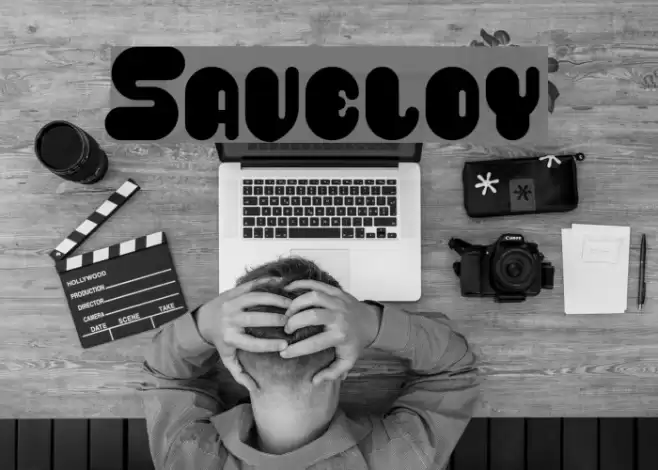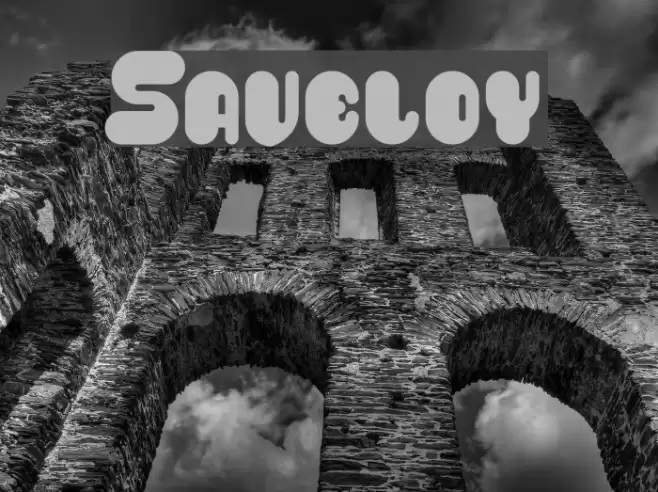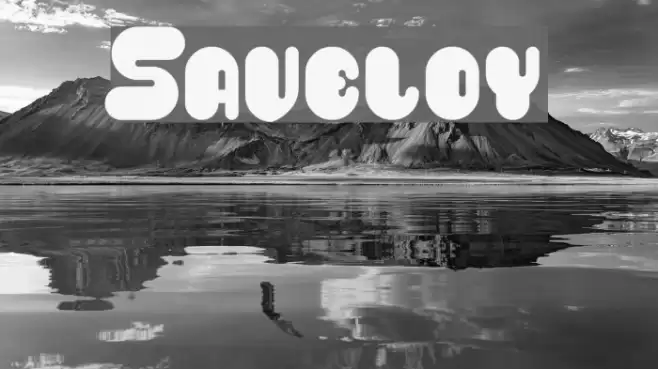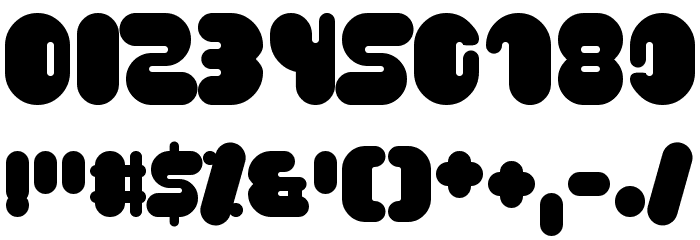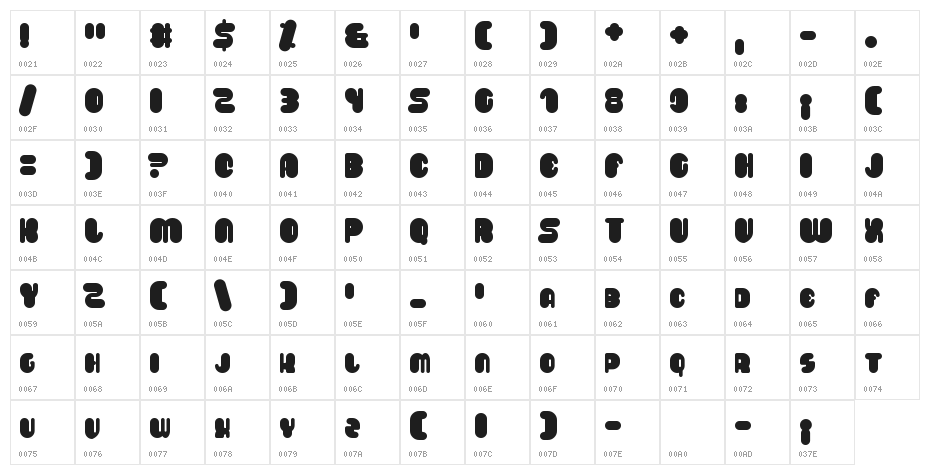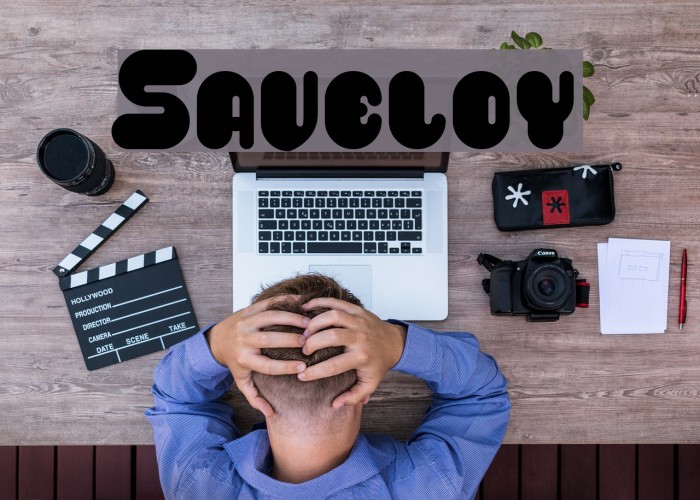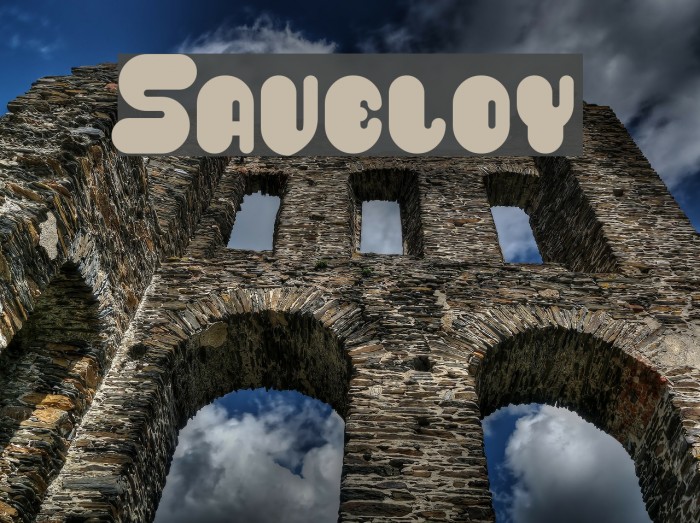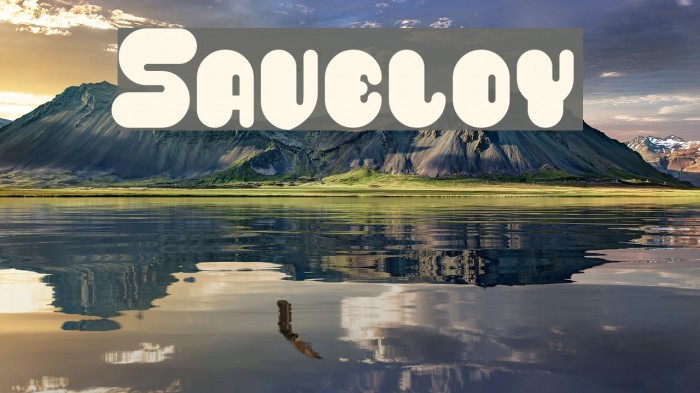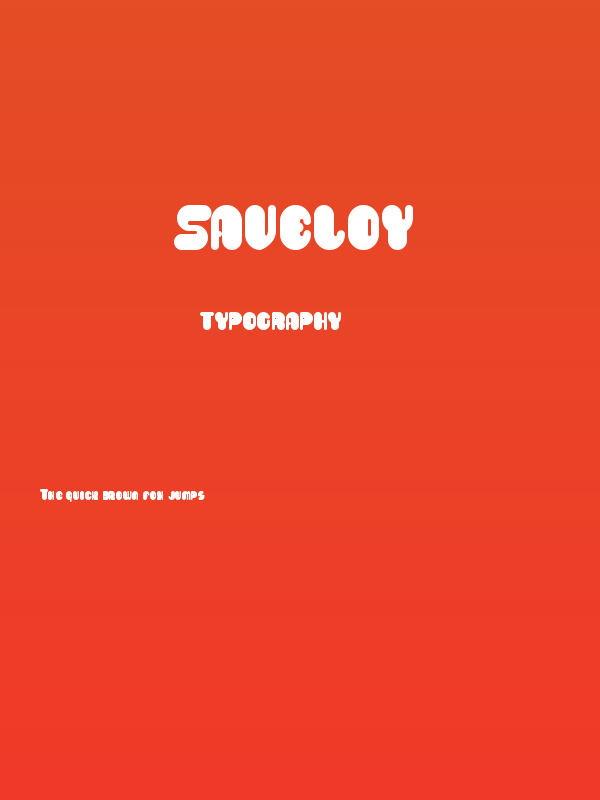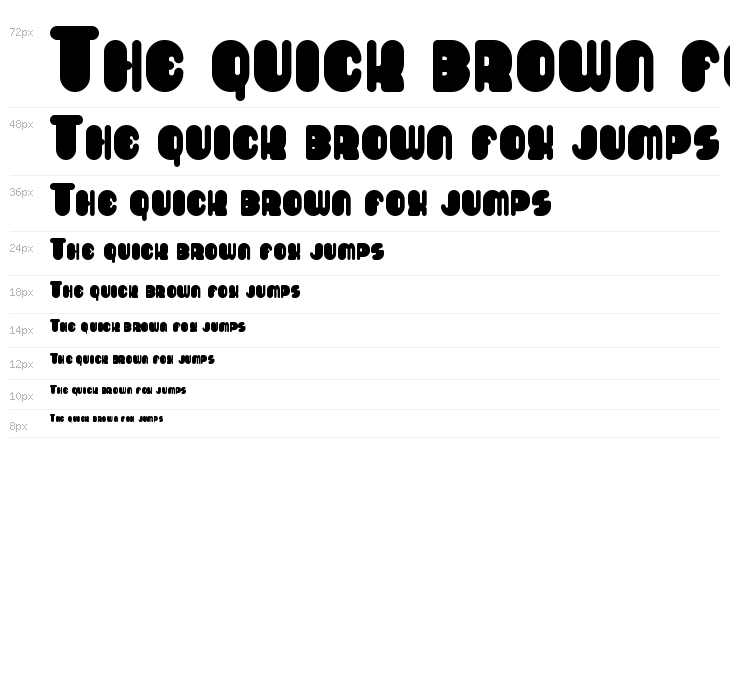
Saveloy Font
Saveloy Description
This font features a bold and playful design with rounded, bubble-like characters that create a sense of fun and whimsy. The letters are thick and uniform, with a consistent stroke width that gives the font a cohesive and solid appearance. The rounded edges and lack of sharp angles contribute to its friendly and approachable style. The font includes both uppercase and lowercase letters, numbers, and a variety of special characters, making it versatile for different design needs. Its unique style is eye-catching and ideal for projects that require a bold statement.
A bold, playful font with rounded, bubble-like characters.
- Proposed Projects: Ideal for children's books, playful branding, posters, and party invitations.
- Overall Style: Playful, Modern